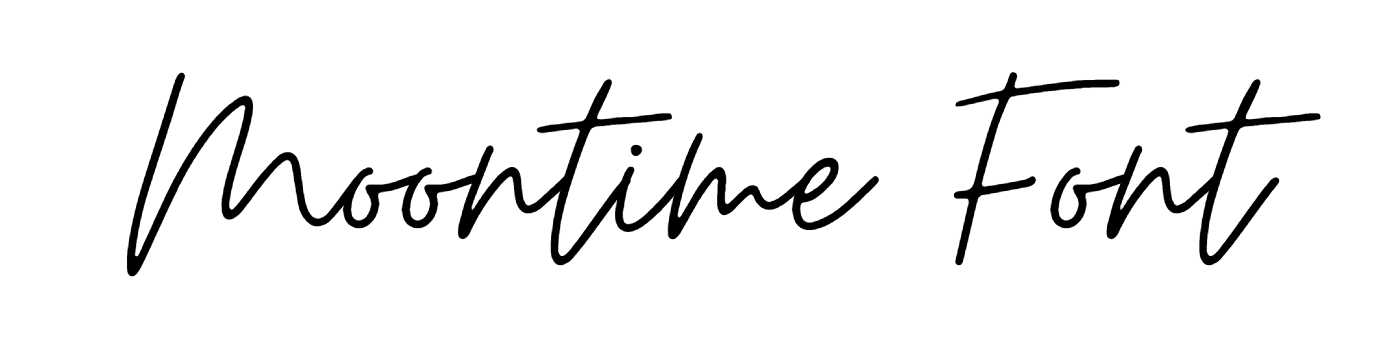
Moontime Font
Moontime is a handwritten font made by DmitriyChirkov. It has a casual, written-with-a-pen look that makes designs feel personal. You can download it for free and test it with your own words in the preview above.
What You Can Type With Moontime
Moontime covers the full alphabet in upper and lowercase, plus all ten numbers, so you can set names, dates and prices without switching fonts. Everyday marks like &, !, ? and @ are there too. There are no accented letters like é or ñ, so it's best kept to English text.
Where Moontime Works Best
Designers usually reach for fonts like Moontime when they're making greeting cards, journal pages and friendly social posts. Set it a bit larger than you would a normal text font. Handwriting styles lose their charm once they get too small to read comfortably.
Does Moontime support accented letters?
No. Moontime has no accented letters such as é, ñ or ü, so it's best for English text.